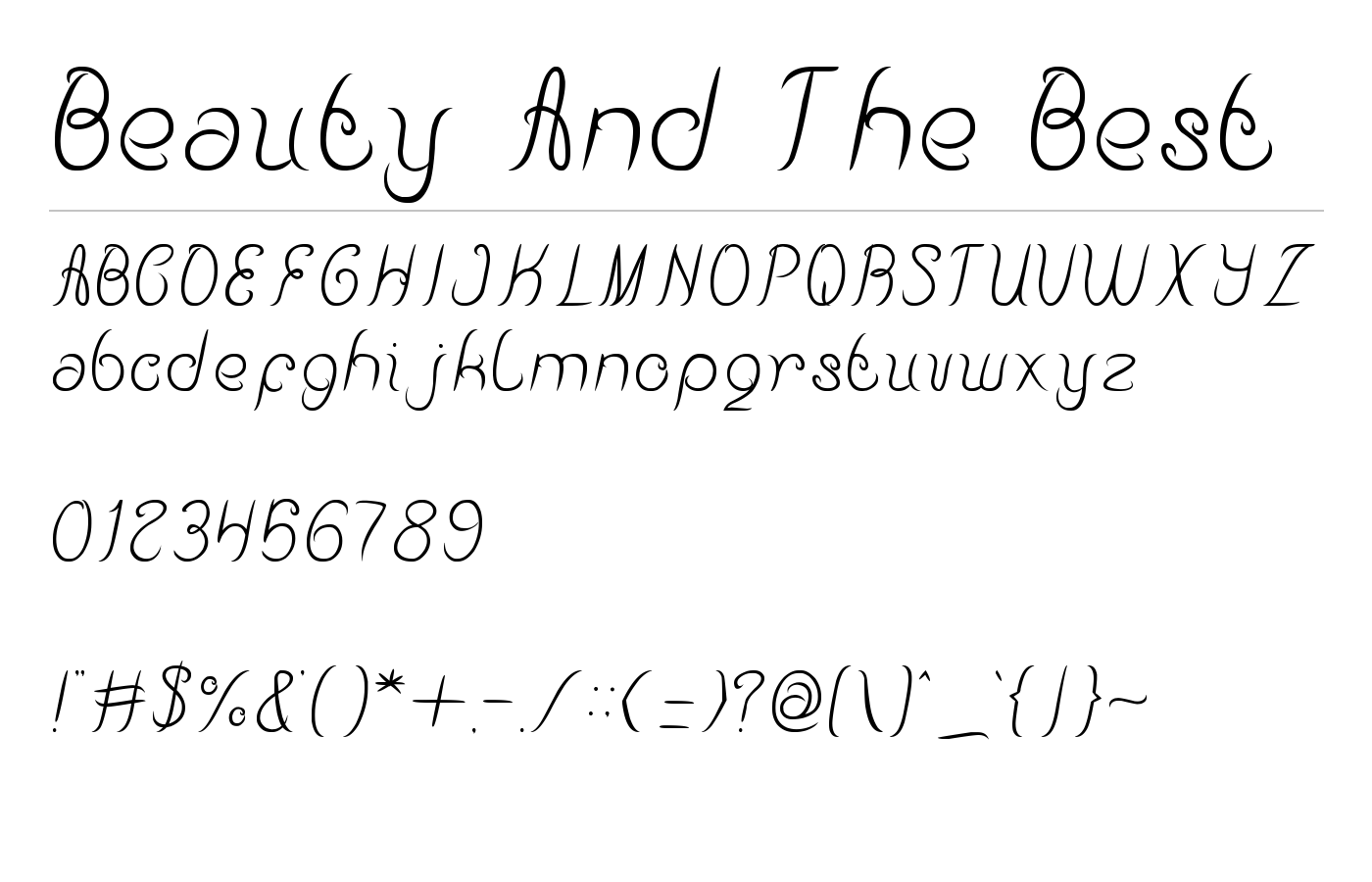
Beauty And The Best is a delicate, decorative script font with a light weight and graceful, flowing lines that create a playful yet elegant feel. Its thin strokes and unique letterforms blend a modern calligraphic style with charming quirks, making it ideal for creative branding, invitations, and artistic projects that seek a whimsical yet refined touch. This font works best in display settings where its distinctive personality can shine, bringing a stylish and sophisticated vibe to headlines and logos.
Beauty And The Best Font
About Beauty And The Best Font